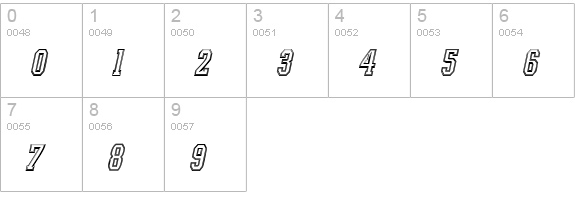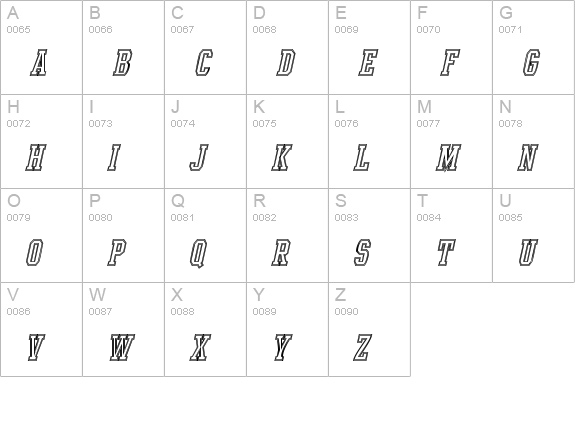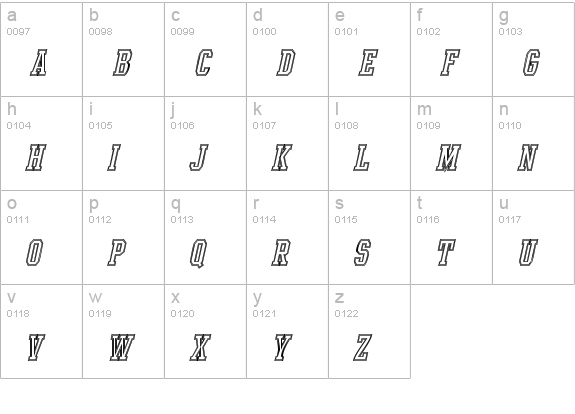
Intramural Contour Italic JL is a distinctive, italic variant in the Intramural typeface family \xE2\x80\x94 well suited to design and typography projects.
Intramural Contour Italic JL is a stunning font that effortlessly combines modernity with elegance. Its sleek and sophisticated appearance is perfect for a wide range of design projects, from sleek and minimalist branding to eye-catching headlines. This font features a unique contour style, adding a touch of depth and dimension to your designs. The italicized letters exude a sense of fluidity and grace, making it an excellent choice for projects that require a touch of sophistication and style. What makes Intramural Contour Italic JL even more remarkable is that it is available for free download at FontsMarket.com. This means that you can easily access this beautiful font without any cost, allowing you to enhance your designs without breaking the bank. Whether you're a professional designer or a creative enthusiast, Intramural Contour Italic JL is a font that will undoubtedly elevate your projects. Its versatility, combined with its elegant contours and free availability, make it a must-have addition to your font library. Download it today and let your creativity flourish with this exceptional typeface.